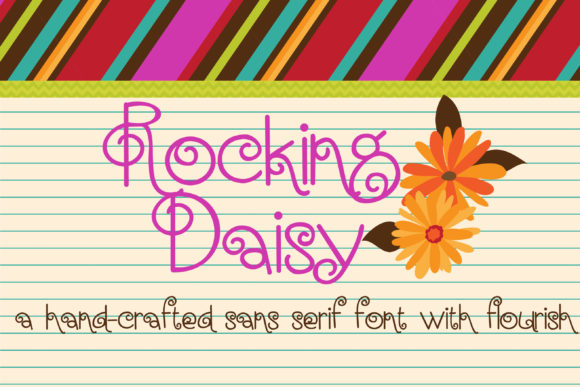
Rocking Daisy Font
Step into a world of pure creative delight with the Rocking Daisy Font, a resplendent script font that will transform your designs into masterpieces. Crafted by the skillful hands of Illustration Ink, this whimsical font is a mesmerizing symphony of handwritten charm and artistic flair. Let your words dance and twirl with the Rocking Daisy's exquisite swirls and charming curves, evoking a sense of playful elegance.
Immerse yourself in the font's captivating allure, where each letter is a delicate work of art, adorned with graceful flourishes and enchanting details. The Rocking Daisy Font is not just a font; it's an expression of your unique style, a reflection of your passion for the extraordinary. Unleash your creativity and let your imagination soar as you effortlessly weave enchanting stories and captivating designs with this remarkable font.
Picture your words taking on a life of their own, imbued with the Rocking Daisy's enchanting personality. Create logos that radiate a touch of whimsy, branding that captures your audience's attention, and social media posts that ignite engagement. The Rocking Daisy Font is your secret weapon to leave an indelible mark in the digital realm, attracting eyes and sparking conversations wherever your designs may roam.
Indulge in the font's versatility, seamlessly adapting to a myriad of creative projects. From wedding invitations adorned with delicate flourishes to posters bursting with playful energy, the Rocking Daisy Font is your go-to choice for adding a touch of magic to any project. Its enchanting presence will elevate your designs, making them stand out from the mundane and resonate with your audience on a deeper level.
Embark on a creative journey like no other with the Rocking Daisy Font. Let your imagination take flight as you explore the limitless possibilities, transforming ordinary words into extraordinary works of art. Each character is a testament to the font's exquisite craftsmanship, inviting you to explore new horizons of creative expression. Discover the joy of creating designs that captivate, inspire, and ignite the imagination.